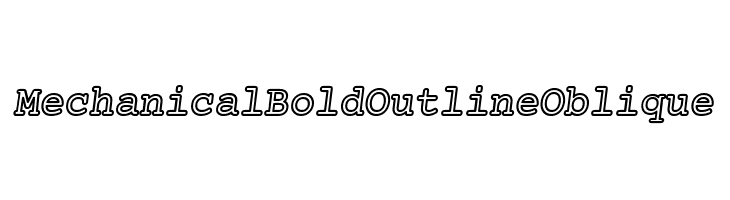
A bold, outlined, oblique font with a mechanical and industrial style.
A bold, mechanical outline font with a modern industrial feel.
A mechanical, outlined, and oblique font with a modern industrial feel.